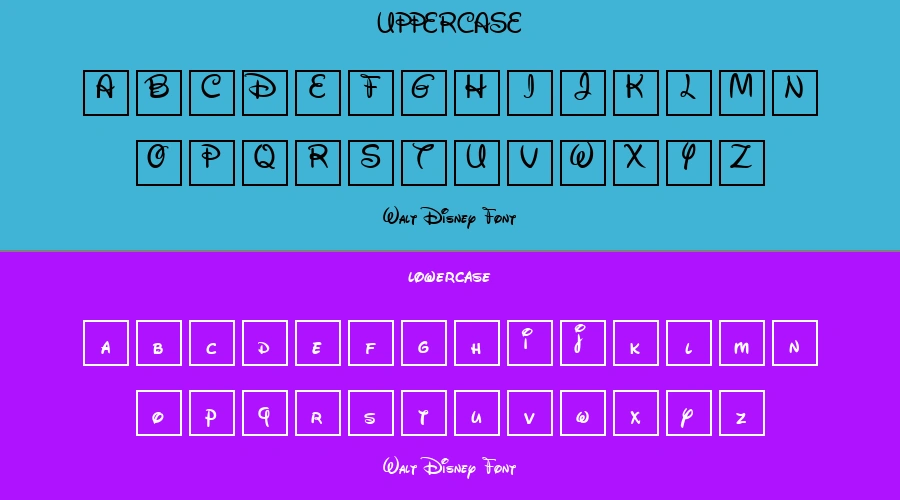
About Walt Disney Font
Walt Disney Font represents a sophisticated approach to type design, balancing pressure variations with professional standards. Perfect for marketing materials, this font family showcases impressive refinement and visual appeal throughout its character set. Designers appreciate its versatility and reliability.
Designers will appreciate nuanced touches including calligraphic influence and monogram components, adding sophistication to any project. These features become apparent in data tables, where data presentation matters most. The careful treatment of aperture size and brand personality ensures optimal performance.